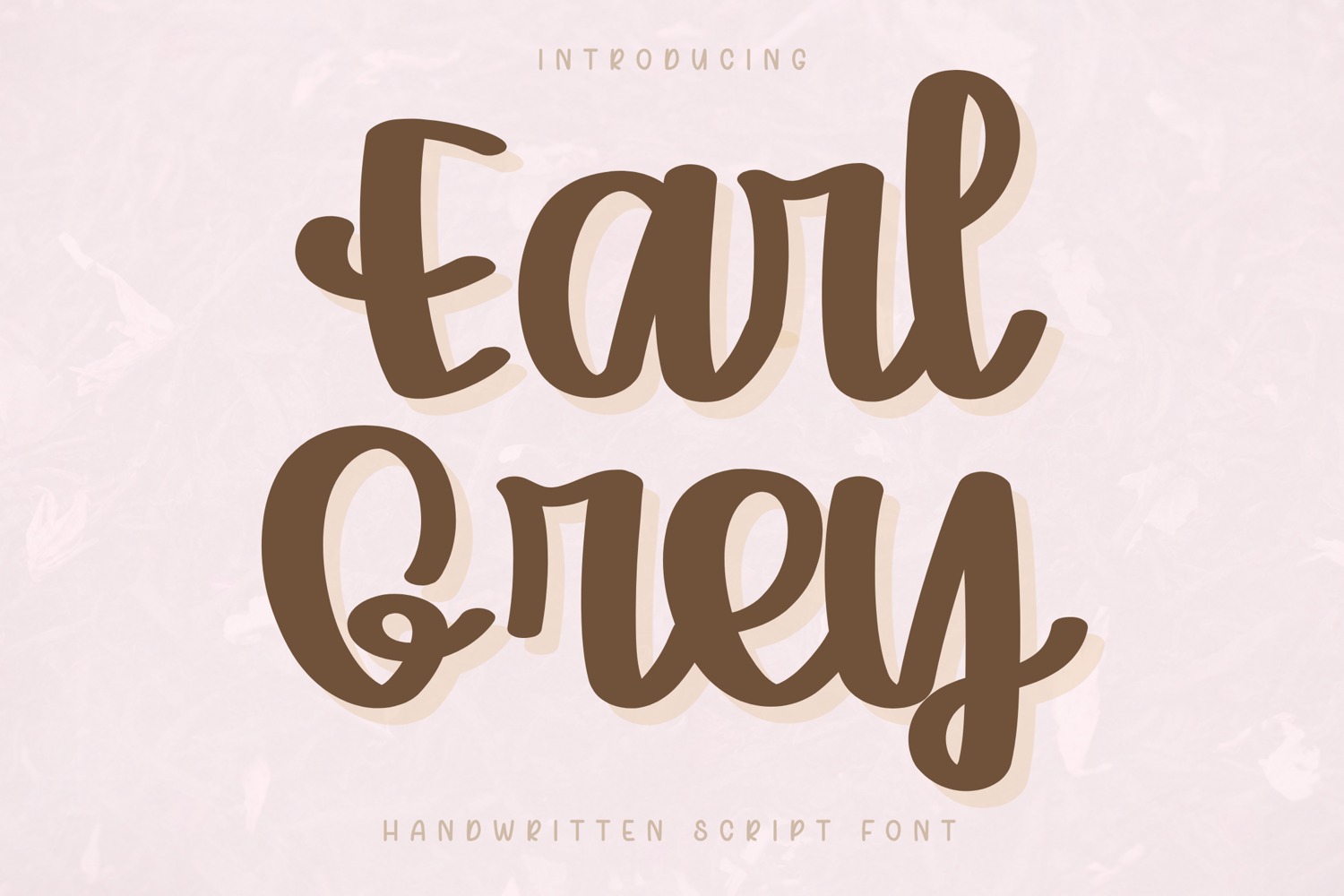
Earl Grey - Handwritten Script Font
Earl Grey – Handwritten Script Font
Earl Grey is a warm and friendly handwritten script font designed to bring a relaxed and comfortable feeling to your designs. With its smooth curves and natural flow, this font creates a soft and approachable look that feels effortless and cozy.
Perfect for everyday creative projects, Earl Grey works beautifully for branding, social media, digital planners, and lifestyle content. Its clean yet playful style makes it easy to read while still maintaining a charming handwritten personality.
Earl Grey is designed with balanced spacing and smooth strokes, making it versatile for both decorative and everyday use.